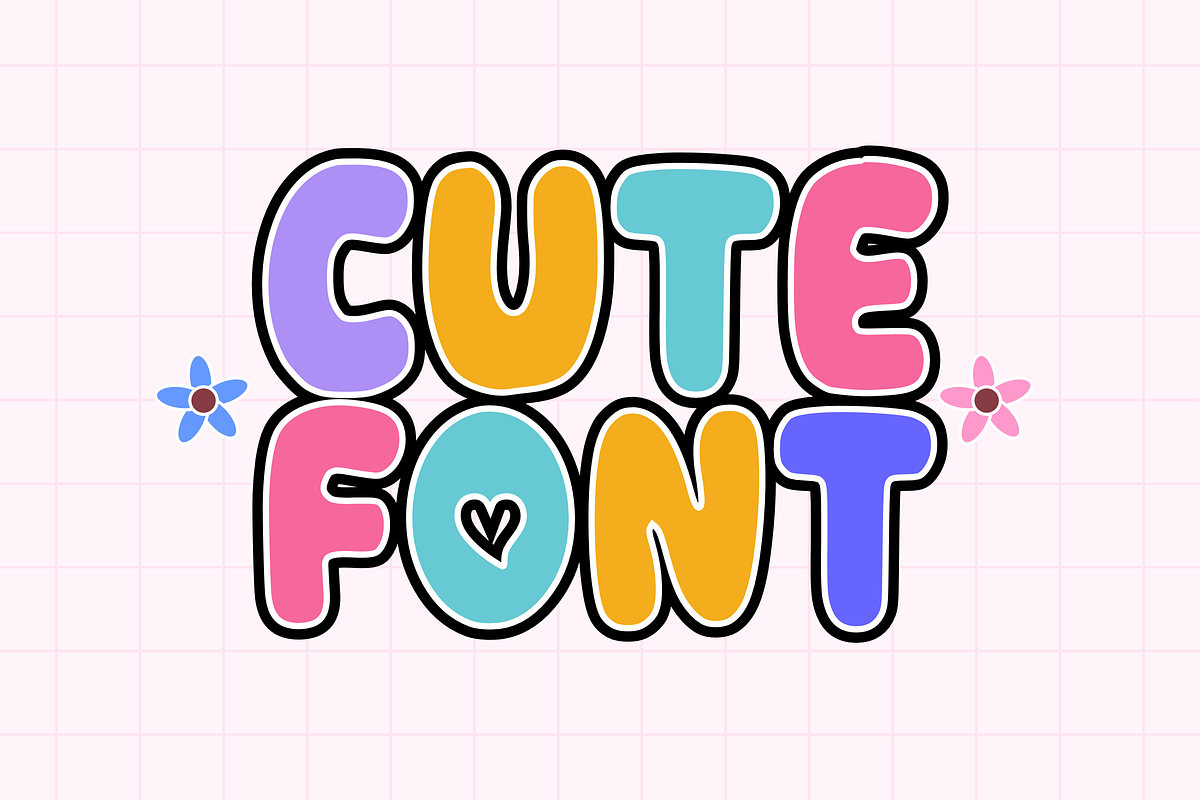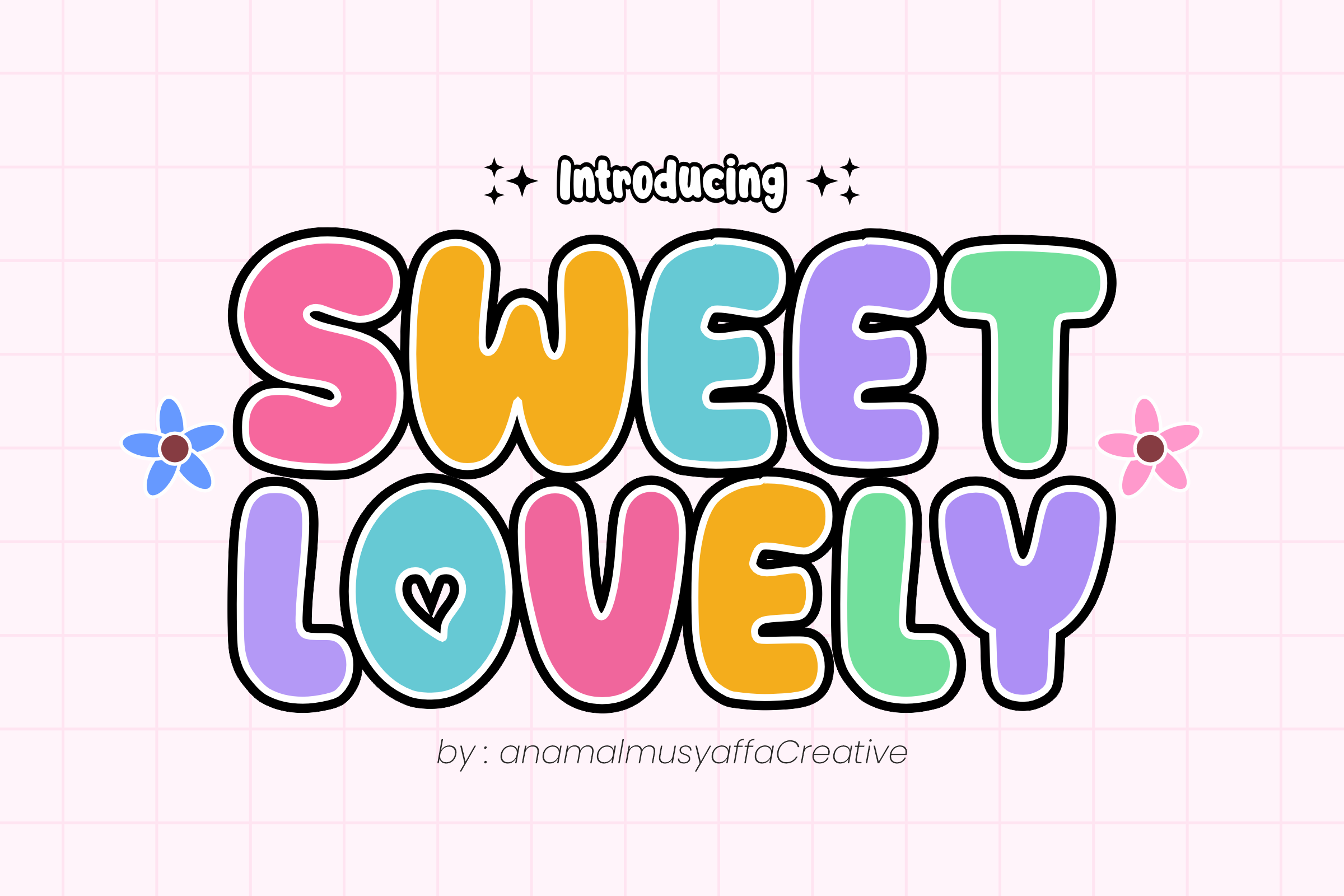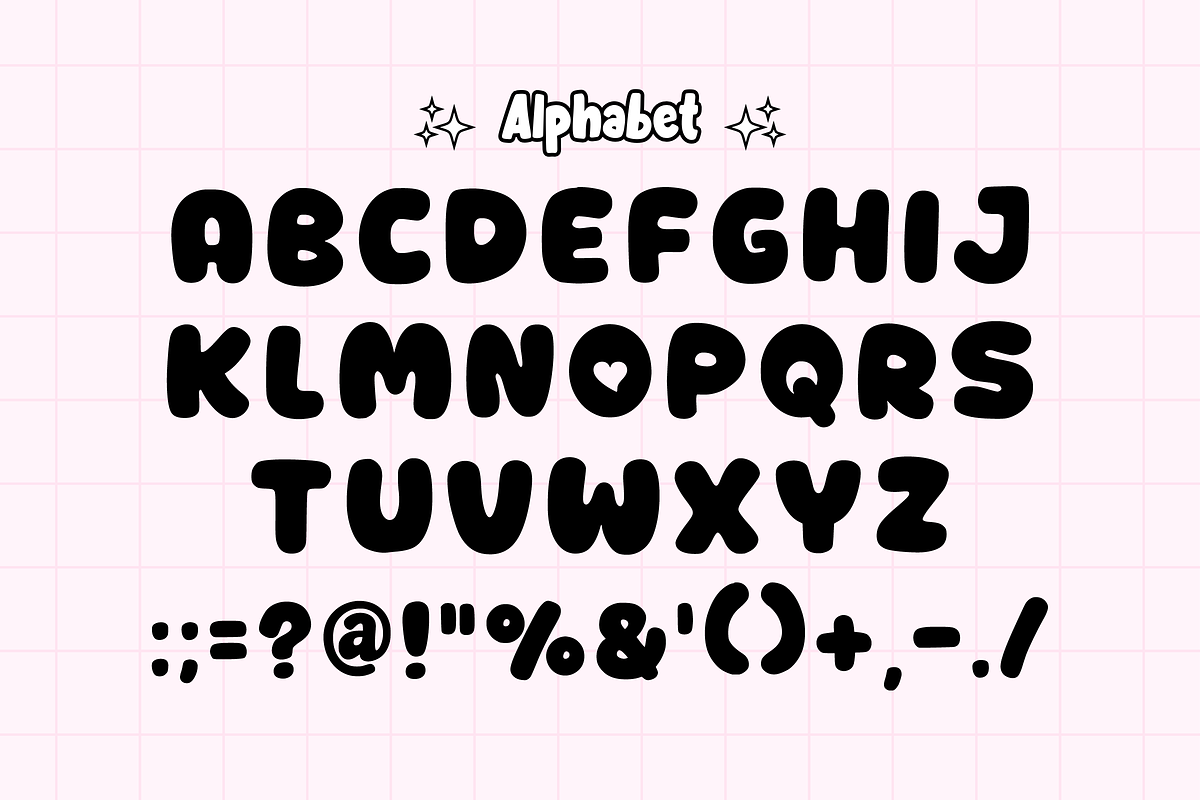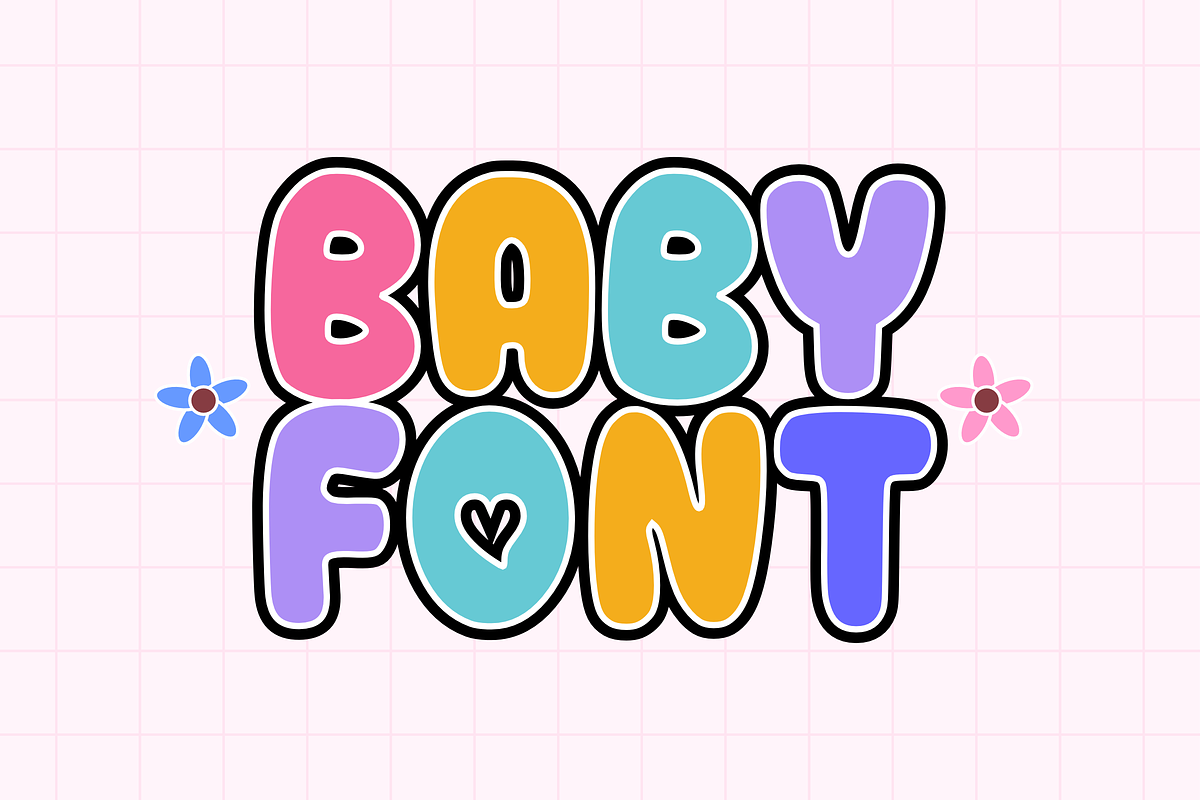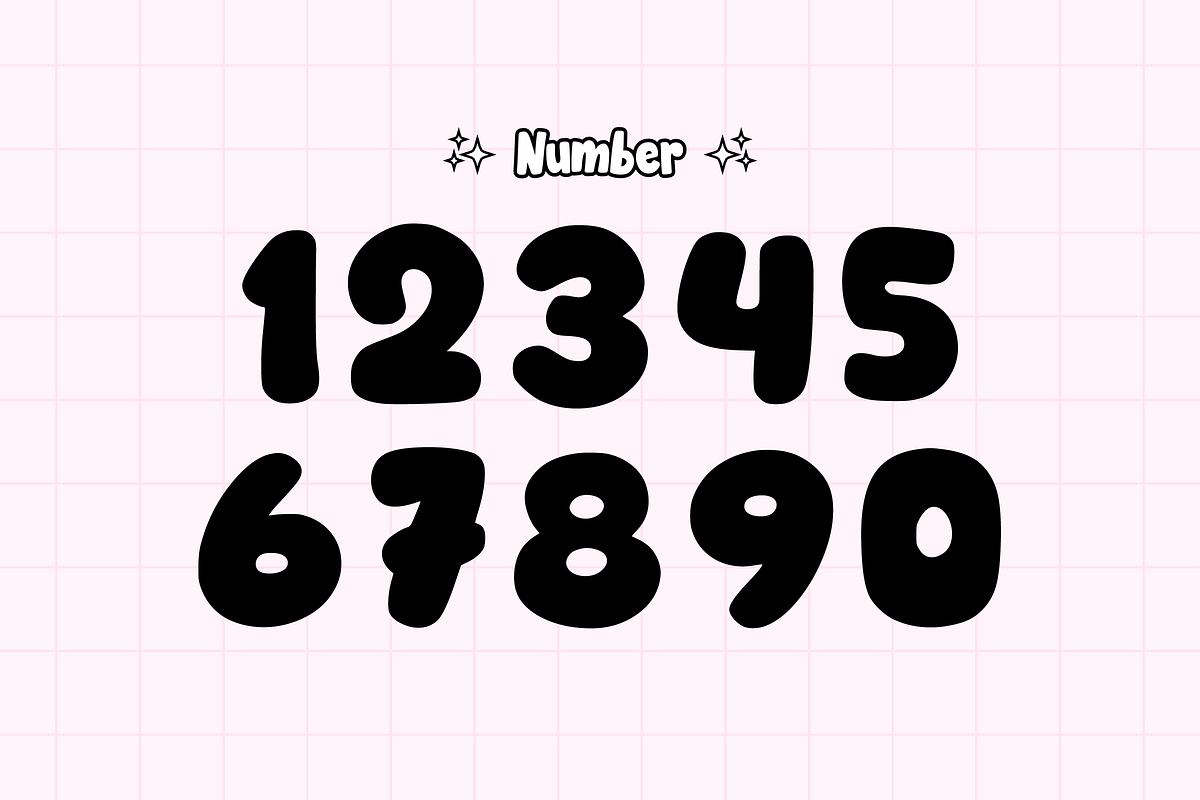
Sweet Lovely - Bubble Display Font
💖 Sweet Lovely - Adorable & Bouncy Bubble Display Font ✨ Spread the love with Sweet Lovely! This charming display font is designed to bring a warm and happy vibe to your creative projects. With its thick, "huggle-able" curves and a playful heart motif tucked into the letterforms, Sweet Lovely is the ultimate choice for designs that need to look extra sweet and friendly.
Whether you're crafting for Valentine's Day, branding a cute bakery, or designing playful stickers, this font delivers a delightful "pop" of personality that is simply irresistible! 🍬
🌟 Features: Uppercase Alphabet (Bold, Round, and Playful) 🔠
Numbers & Essential Symbols 🔢
Signature Heart Details (Integrated into the letters!) 💘
High-Impact Shadow Style (Great for readability) 🖋️
🚀 Best For: Kawaii Branding & Sweet Shop Logos 🎀
Greeting Cards & Valentine’s Day Designs 💌
Stickers, Enamel Pins & Merchandise 🎨
Kids' Apparel & Nursery Wall Art 👕
YouTube Thumbnails & Social Media Content 📸
Birthday Invitations & Party Decor 🎂
Add a dash of sweetness to your design toolkit with Sweet Lovely today! 😊